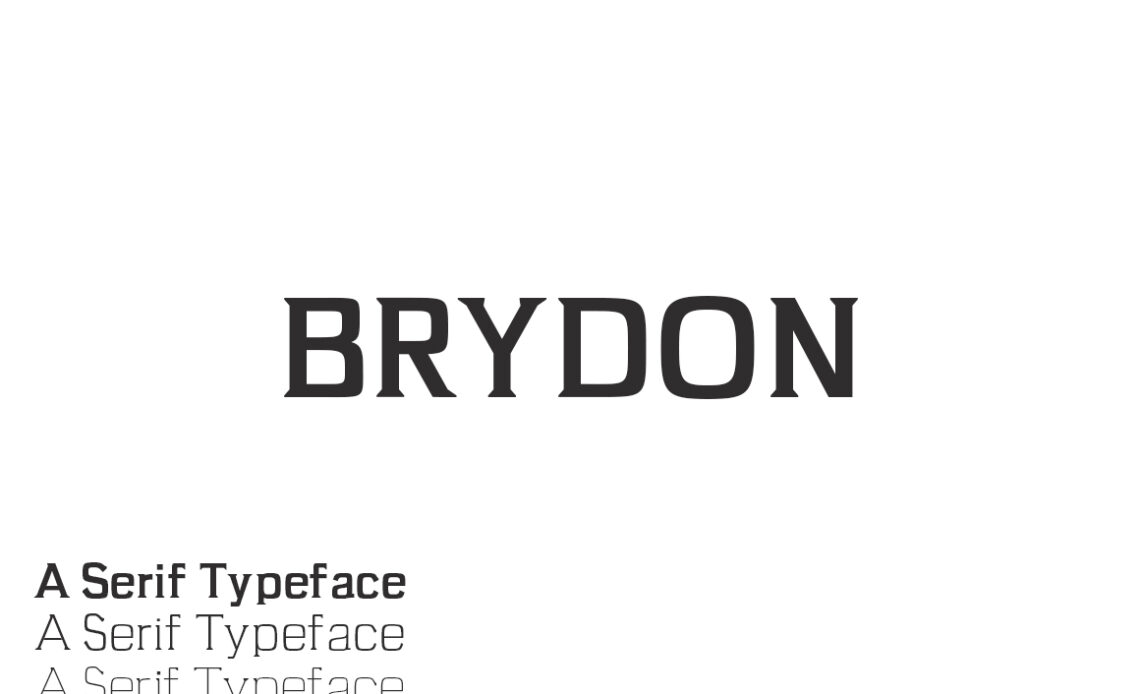
Brydon Font
Welcome to the world of Brydon Font, where elegance meets modernity in perfect harmony. This awe-inspiring serif font, crafted by the brilliant minds at Creative Tacos, is a powerful tool that will elevate your designs to new heights. With its bold and confident strokes, Brydon exudes a masculine charm that is perfectly balanced by its classic undertones. A timeless beauty, it effortlessly adapts to a wide range of creative endeavors, leaving an enduring impression on your audience.
Brydon stands out from the crowd with its square and evenly weighted structure, a hallmark of modern design. Its sharp and precise lines command attention, adding a touch of sophistication to every project. Whether you're designing logos, posters, brochures, or digital content, Brydon will infuse your work with a sleek and contemporary aesthetic.
Unlock the full potential of Brydon and witness the transformation of your creative visions into stunning realities. Let its beauty captivate your audience, evoking emotions and leaving a lasting impact. With Brydon as your trusted font companion, you'll embark on a journey of creativity, pushing the boundaries of design and leaving an indelible mark on the world.